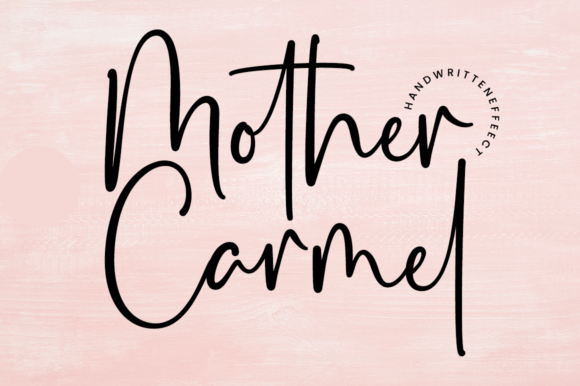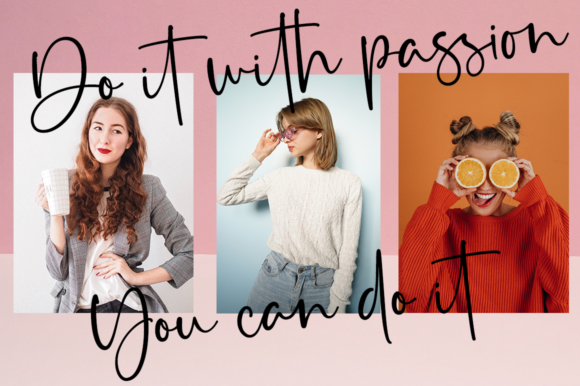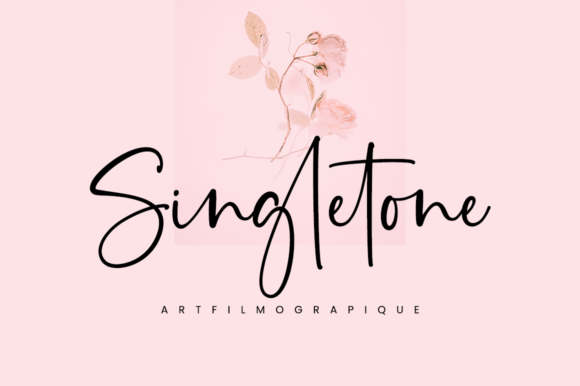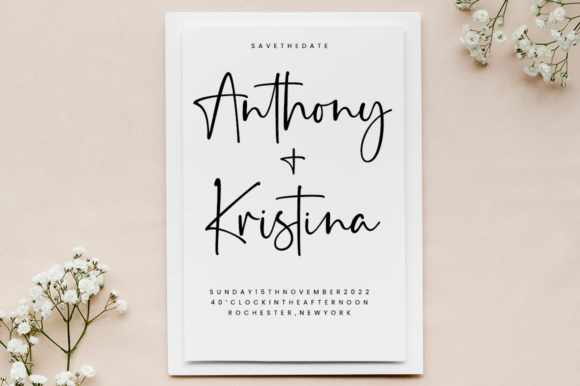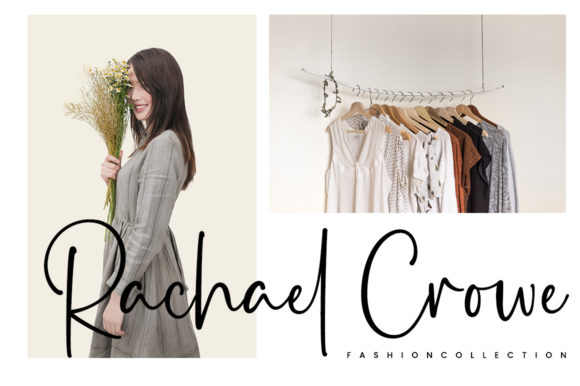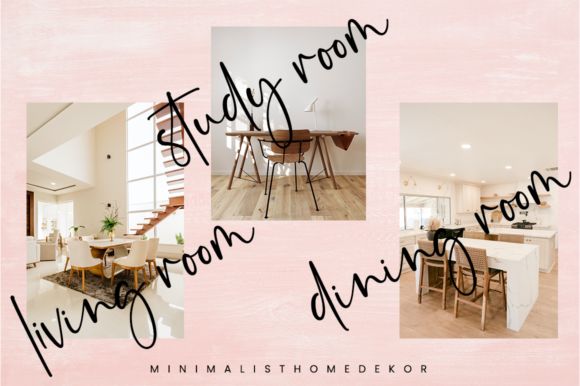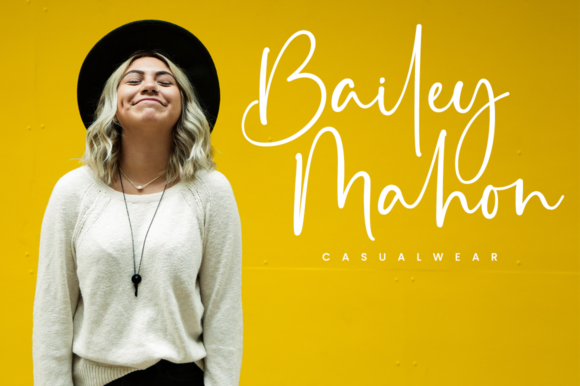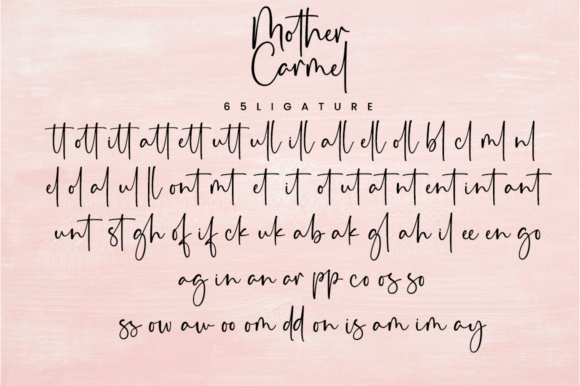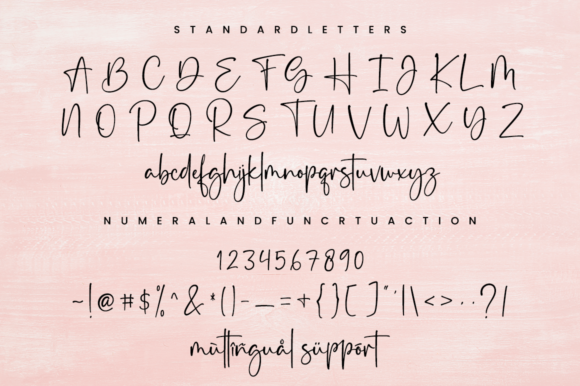
Mother Carmel is a magical script font carefully created with a touch of elegance. This font is PUA encoded which means you can access all of the glyphs and swashes with ease!
Mother Carmel Font